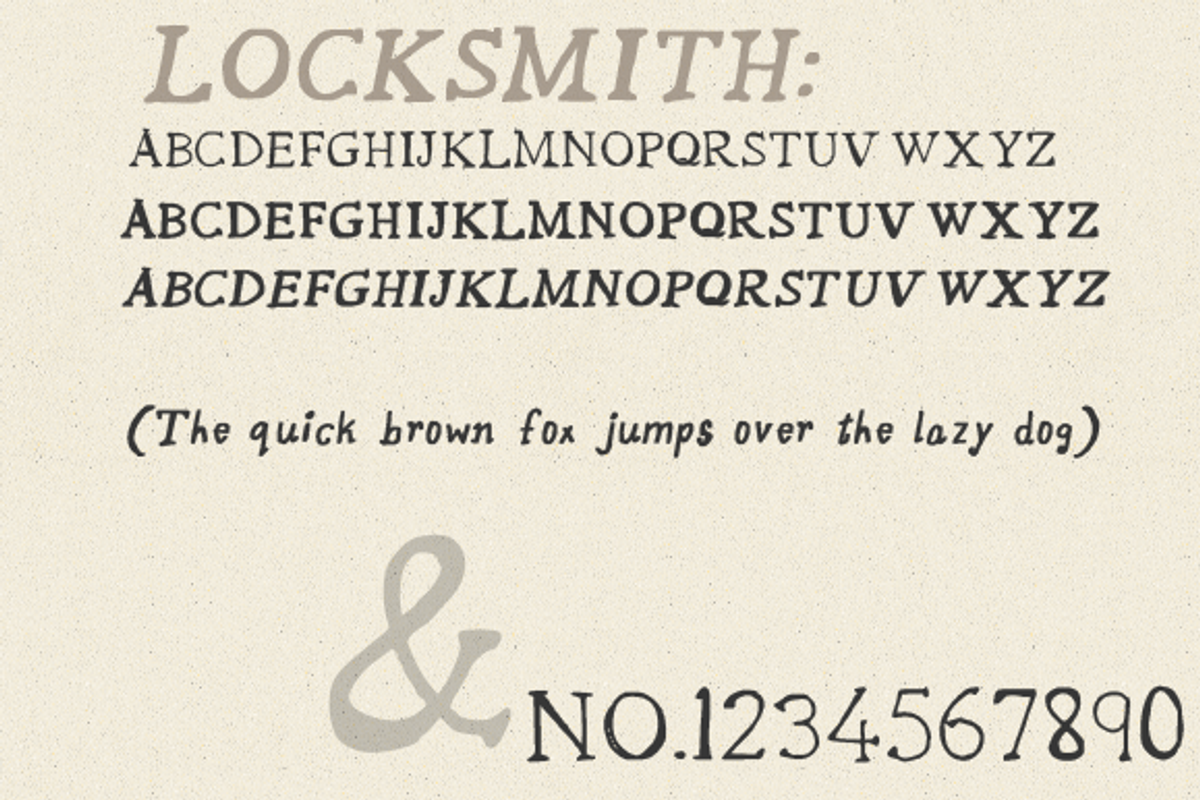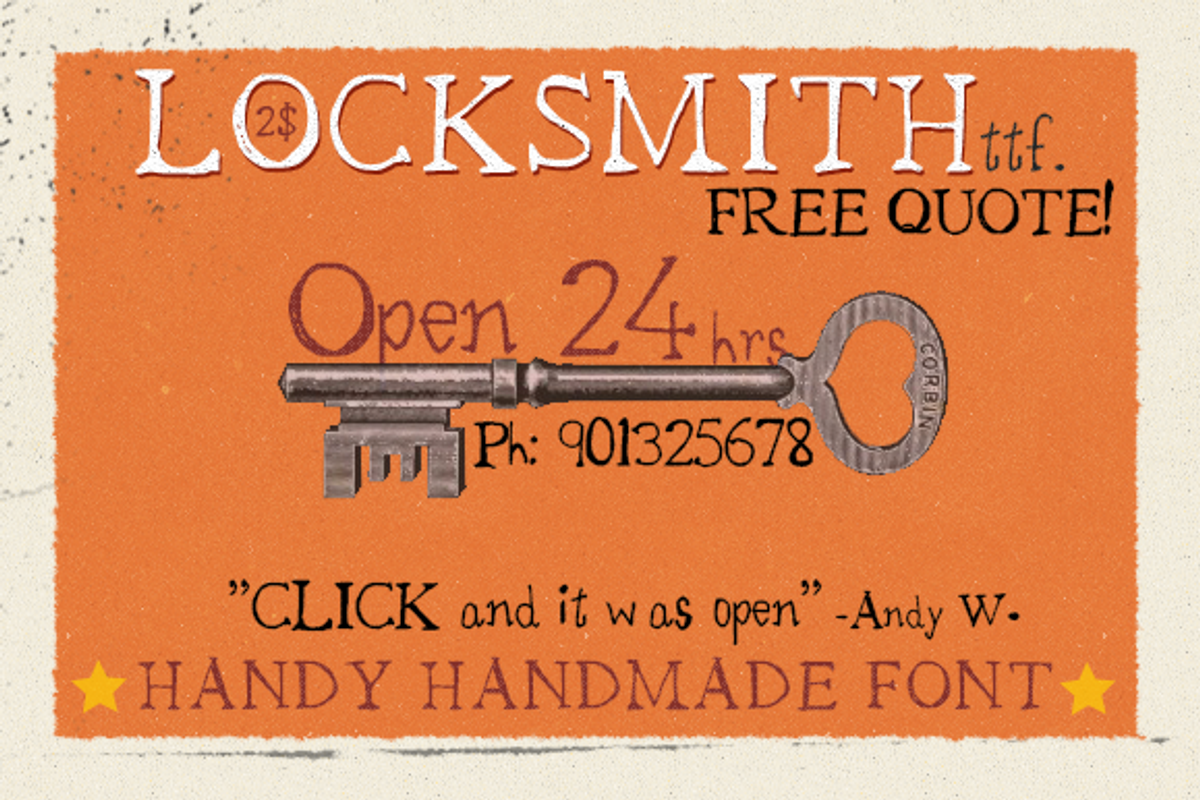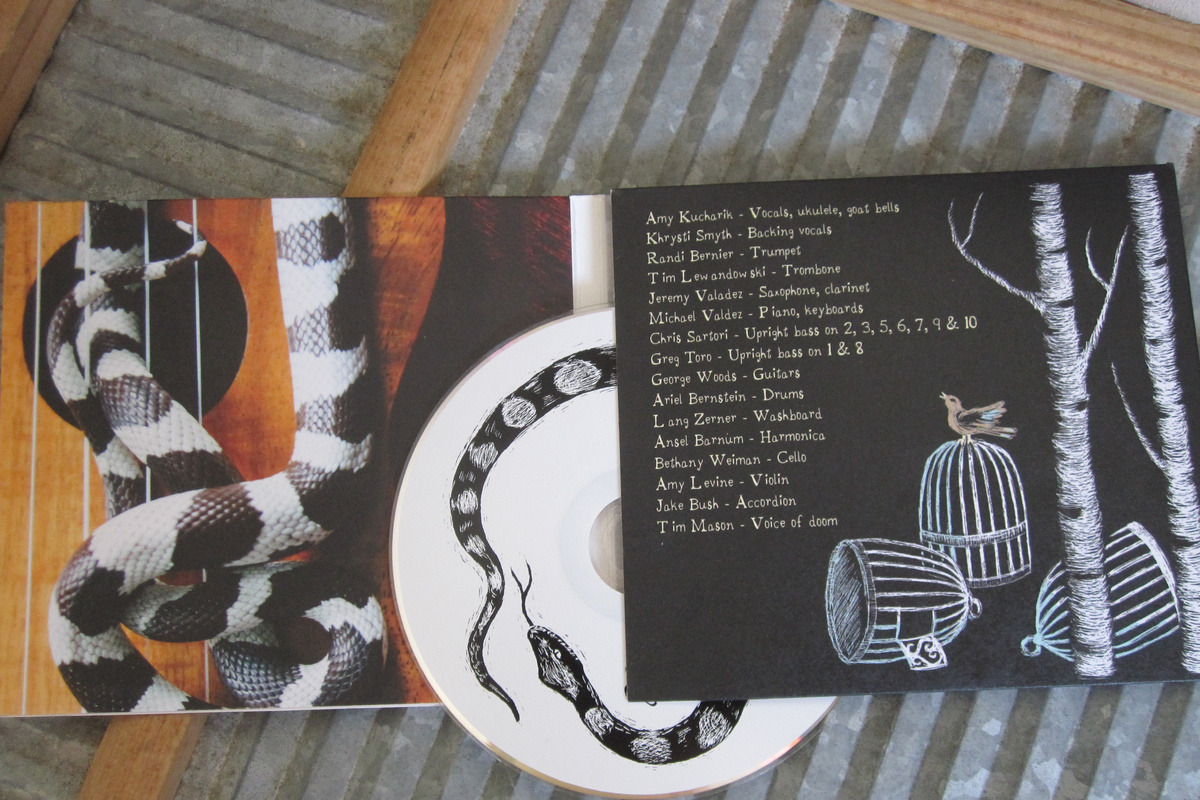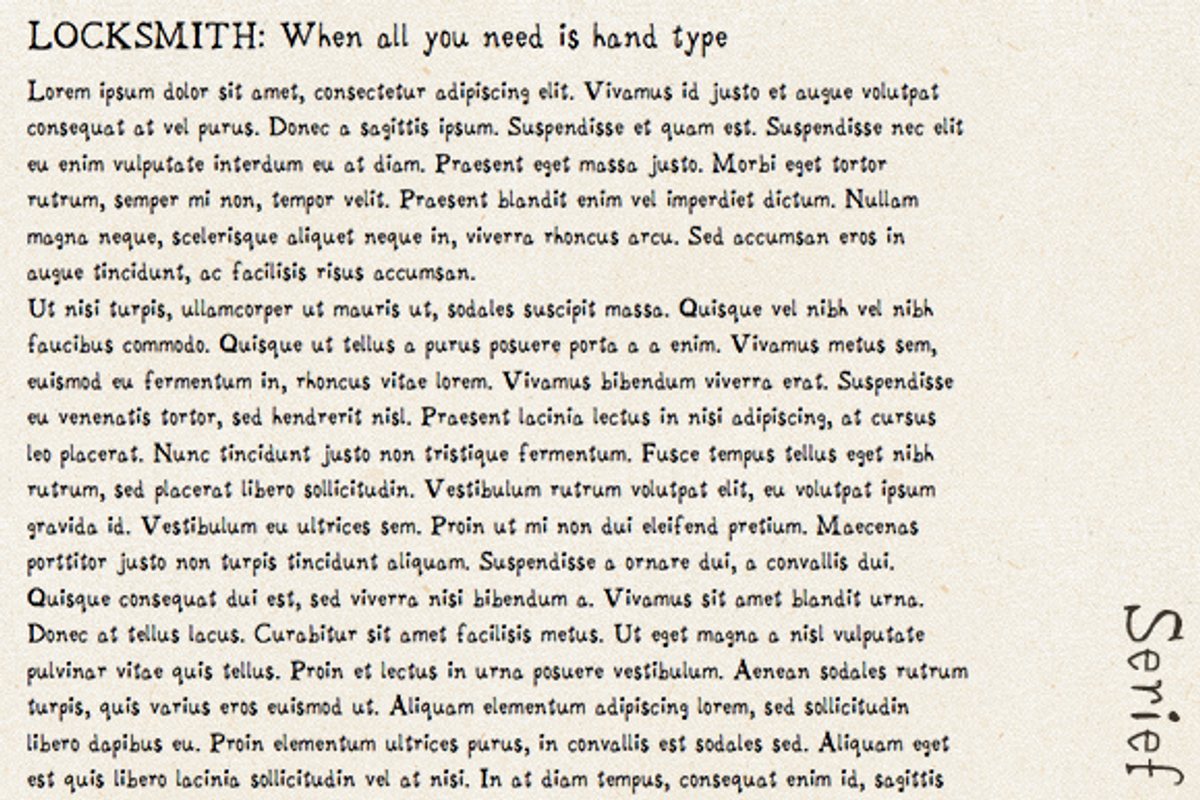
Locksmith Font - Sale by Simplex Opera is a font selected for branding, posters, packaging, typography.
Why Locksmith Font - Sale is worth a look
Locksmith Font - Sale by Simplex Opera fits naturally into Branding, posters, packaging, typography.